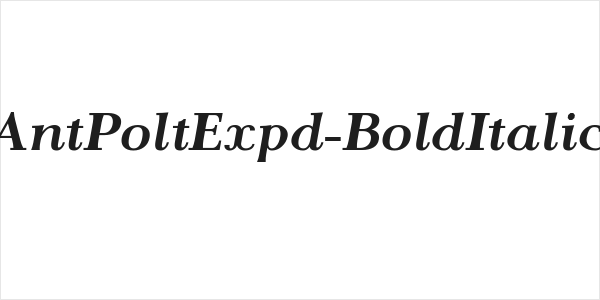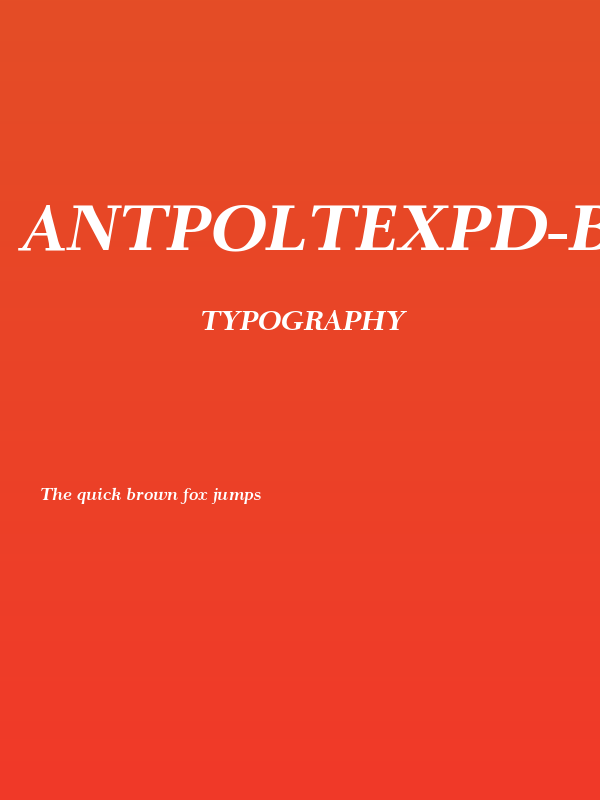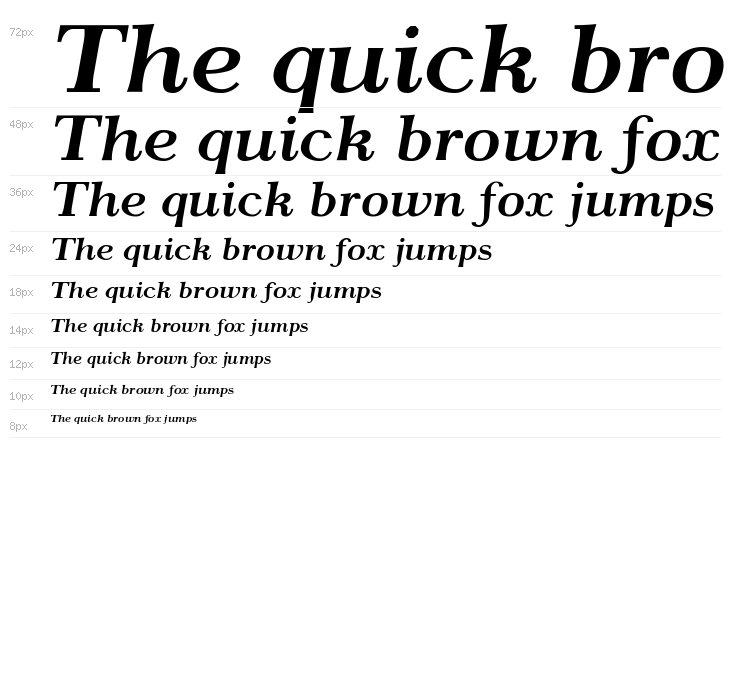
AntPoltExpd-BoldItalic Font
AntPoltExpd-BoldItalic Description
This font exhibits a classic and elegant style with a distinct italic slant, giving it a sophisticated and dynamic appearance. The characters are bold, with a strong presence that is enhanced by the expanded width, allowing for greater readability and impact. The serifs are pronounced, adding a touch of tradition and formality. The contrast in stroke thickness is medium, providing a balanced look that is neither too stark nor too subtle. The character spacing is normal, ensuring that each letter is clearly defined while maintaining a cohesive flow. This font is versatile, suitable for both formal and creative applications, making it ideal for projects that require a touch of elegance and authority.
| Use Case | Headlines, Logos, Editorial design |
| Proposed Projects | Ideal for book covers, formal invitations, branding materials, and editorial design. |